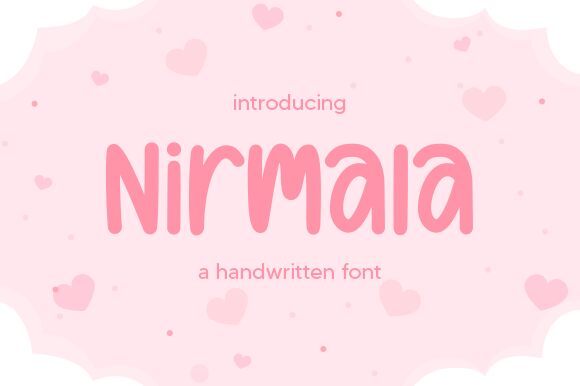
Nirmala Creative presents a stunning semi-bold, semi-condensed handwritten font - Nirmala. Perfect for projects that require a personal touch, Nirmala adds a unique and creative flair to any design. Its semi-bold weight provides just enough emphasis without overpowering the message, while its semi-condensed width makes it ideal for space-saving designs. Use Nirmala in your branding projects, social media graphics or even wedding stationery to add a touch of elegance and personality. Let Nirmala be the voice of your next project and watch it come to life with its handwritten charm.
Nirmala